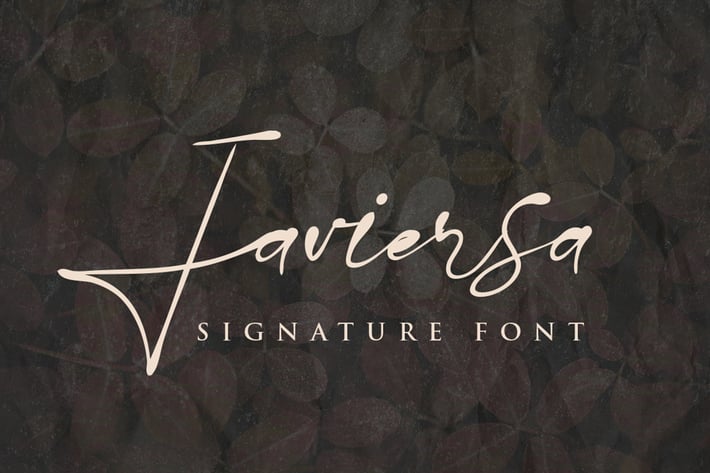
Javiersa - Signature Font
Javiersa is a beautiful and calm handwritten font with a classic feel. Get inspired by its timeless appeal!
This enchanting font will turn any creative idea into a true standout. Perfect fit for all of your logos, branding, social media, etc.
Get creative with its unique playfulness, and use it to brighten up any crafting project!
This enchanting font will turn any creative idea into a true standout. Perfect fit for all of your logos, branding, social media, etc.
Get creative with its unique playfulness, and use it to brighten up any crafting project!